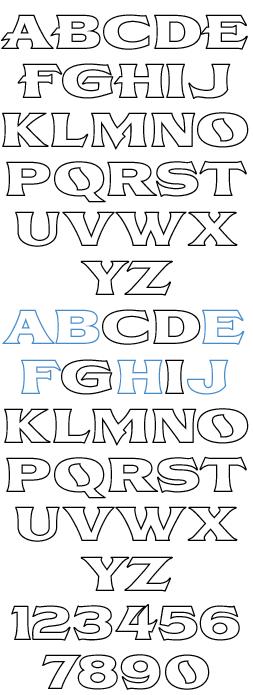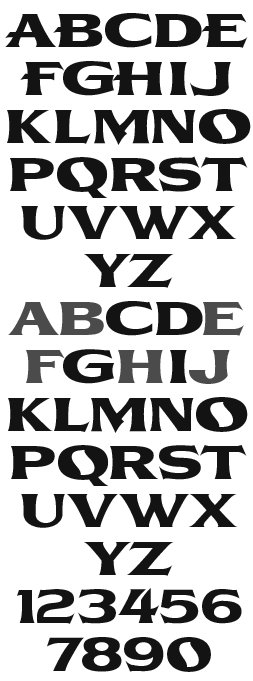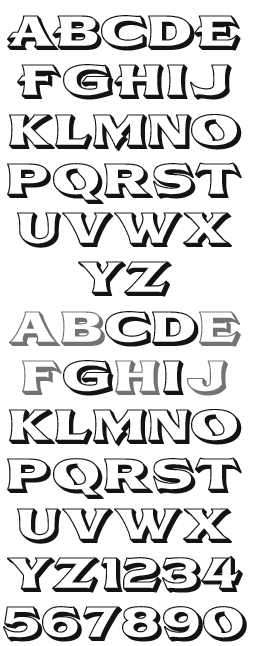
LHF Gilmore A replication of the old Gilmore Oil Company lettering. (Also made famous by pilot Ross Turner who flew the "Gilmore Lion" with the lettering emblazoned on the side.) Throughout the history of the company, various lettering was employed. This style seems to have been used most commonly (and is the most attractive in our opinion). Set includes: Regular, Outline and Shadow versions.